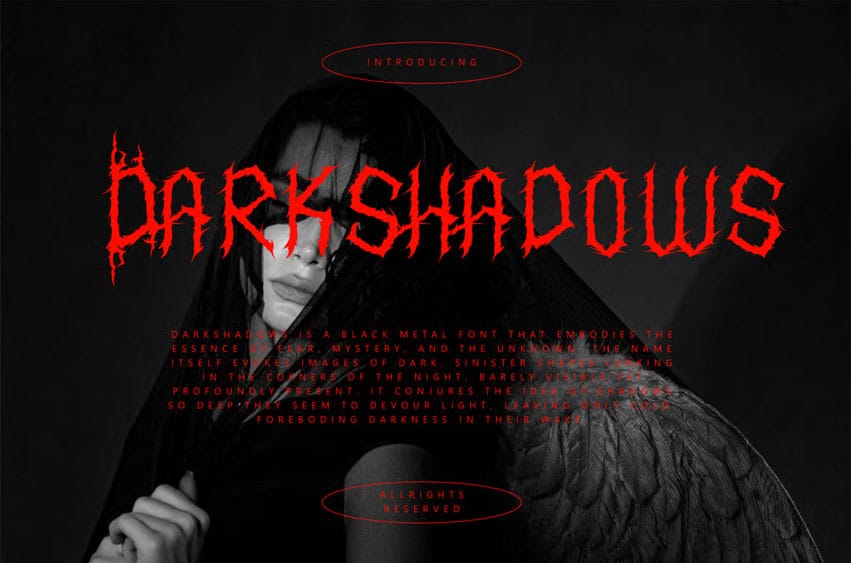
Darkshadows Font is a black metal font that embodies the essence of fear, mystery, and the unknown. The name itself evokes images of dark, sinister shapes lurking in the corners of the night, barely visible yet profoundly present.
It conjures the idea of shadows so deep they seem to devour light, leaving only cold, foreboding darkness in their wake.